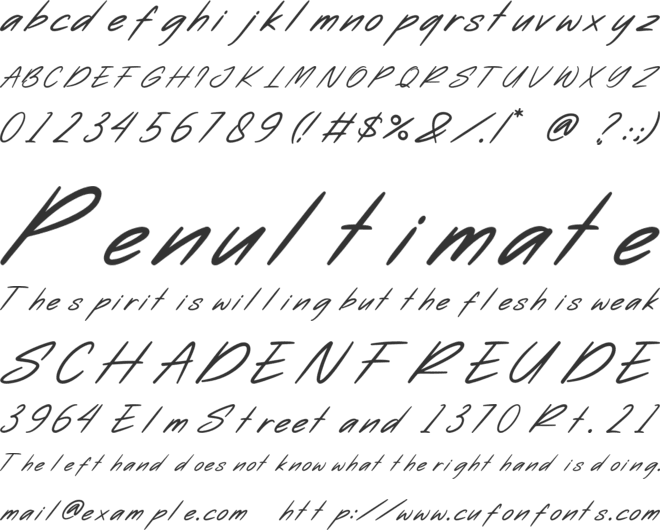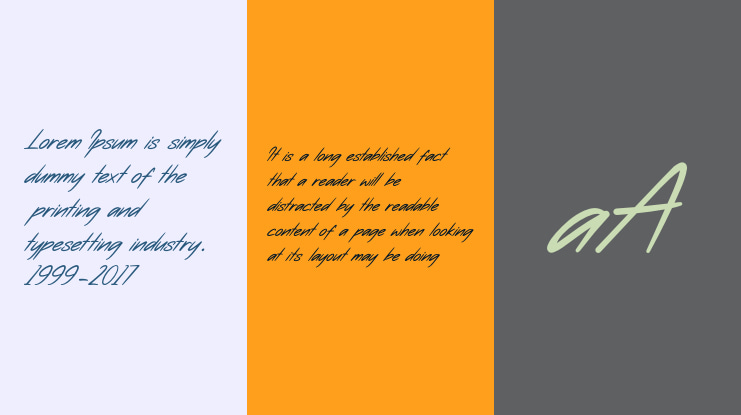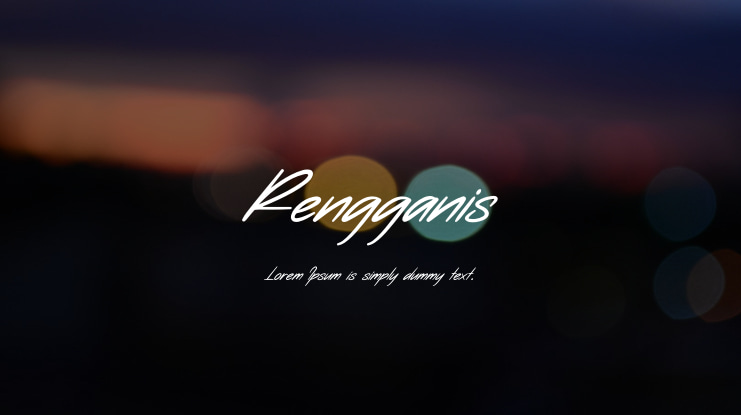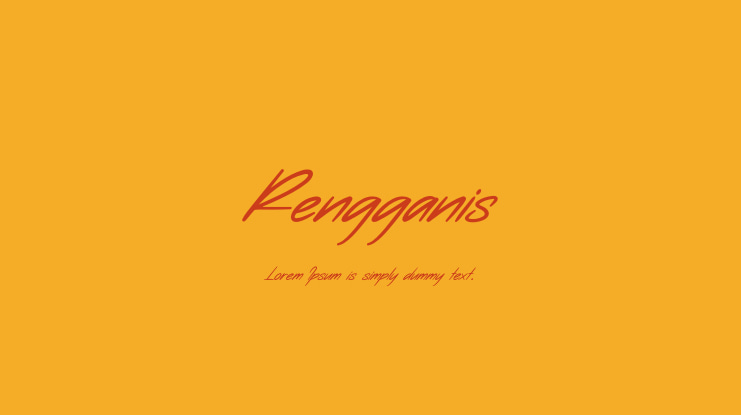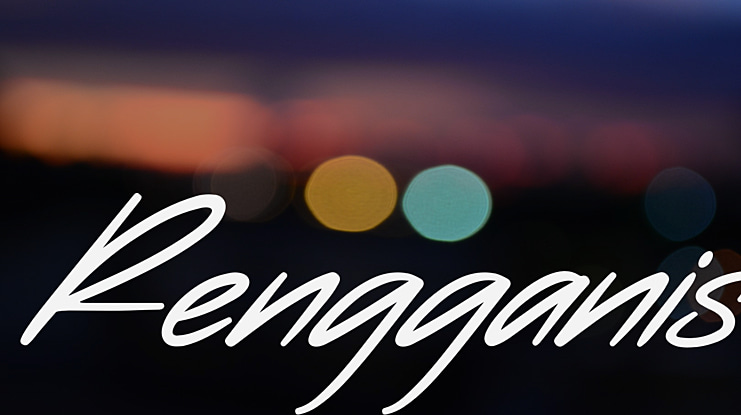
Rengganis Font
Hamber Perdiansyah
Rengganis is a handwriting font. This font is perfect for Logo type, photography, social media posts, product packaging, T shirt, and many more!